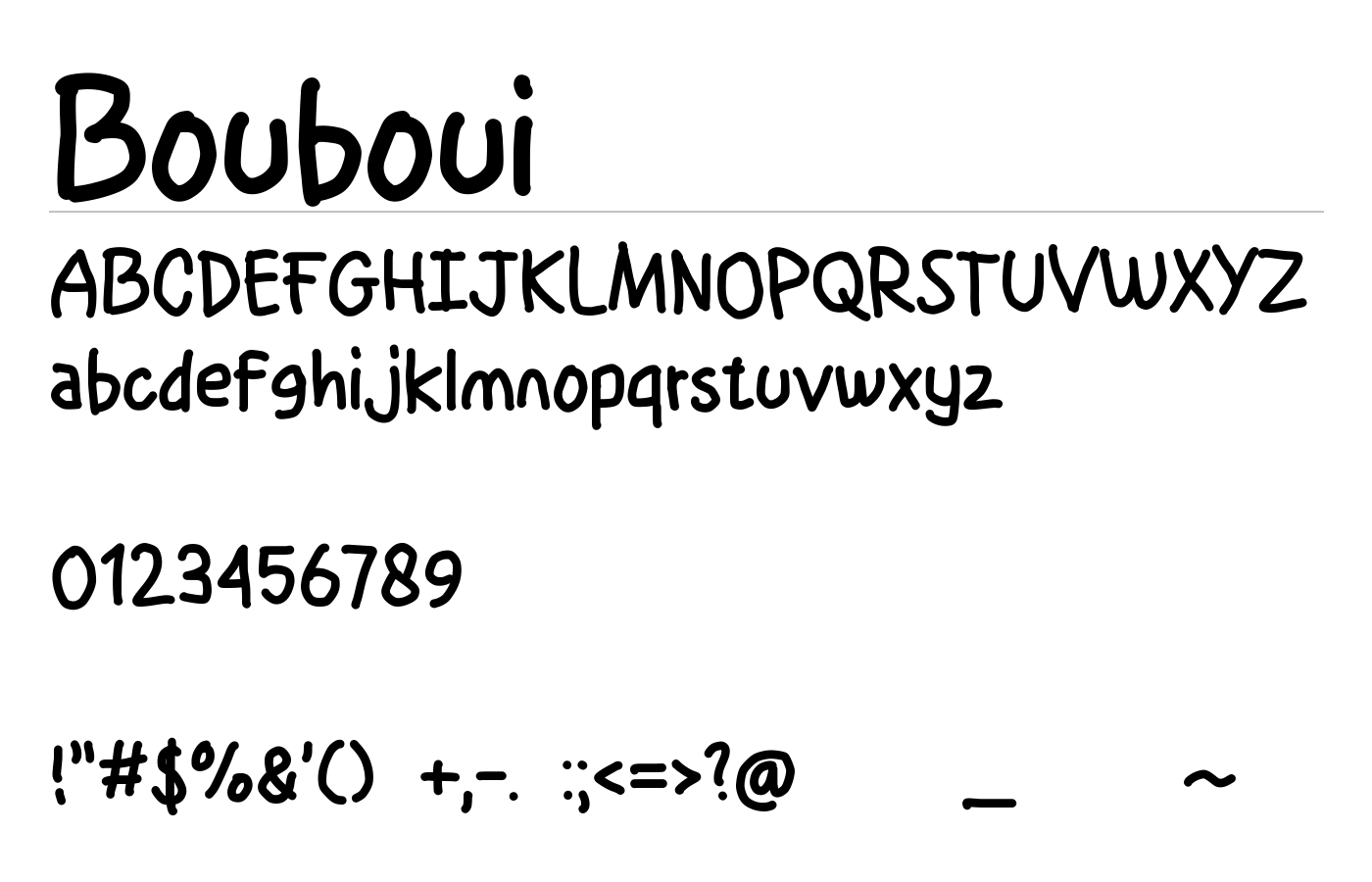
Bouboui Font is a playful and casual handwritten sans serif typeface characterized by its irregular, rounded letterforms and an informal, friendly feel. Its medium weight and lively stroke variations give it a natural, hand-drawn charm, making it ideal for creative projects, children’s books, or branding that seeks a personal and approachable touch. This font works well in logos, invitations, and fun editorial designs where a warm, human presence is desired.
Bouboui Font